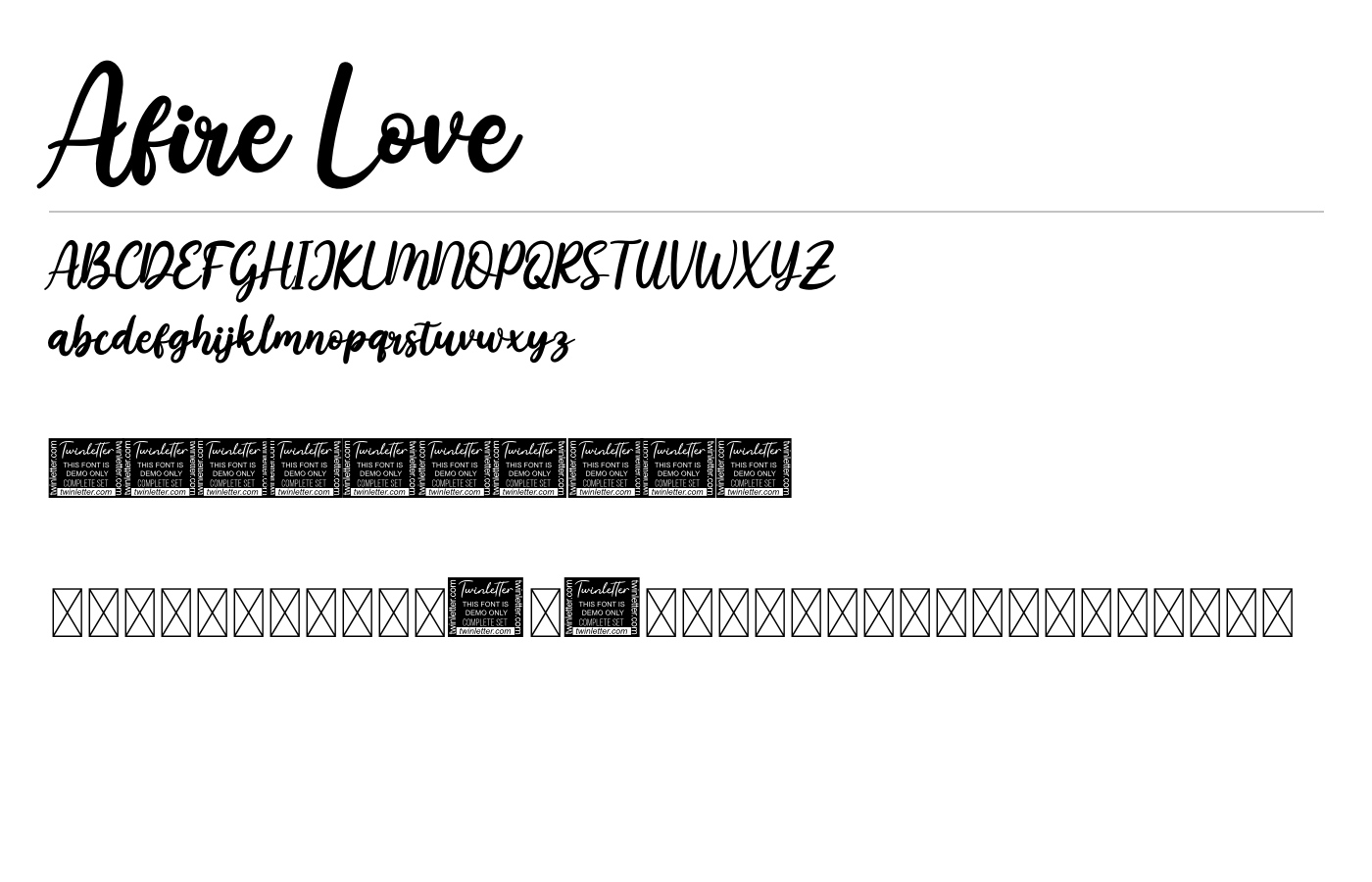
Afire Love is a lively and elegant script font featuring smooth, fluid strokes with a slightly casual feel. Its medium weight and balanced letterforms make it perfect for adding a personal, handwritten touch to wedding invitations, branding, or creative projects where warmth and friendliness are key. The font’s clean, connected letters embody a charming, approachable style ideal for both print and digital use.
Afire Love Font
About Afire Love Font